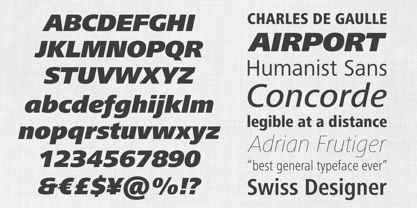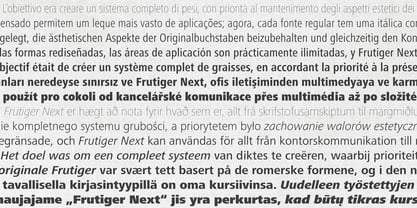
Frutiger® Next
by Linotype
The Frutiger Next Font Family was designed by Adrian Frutiger, Linotype Design Studio and published by Linotype. Frutiger Next contains 21 styles and family package options.
Frutiger Next is Adrian Frutiger’s and Linotype’s completely new interpretation of the well known typeface, Frutiger. The goal was to create a complete system of weights, and priority was placed on retaining the aesthetic aspects of the original characters while optically adjusting the contrast between weights. The italics in the original Frutiger were based very closely on the roman forms, and in the new Frutiger Next, they are re-designed to be true italics. The expansion and harmonization of the palette in regular, italic, and condensed allows a wider range of application; now each regular typeface has a companion italic. With the re-worked forms the areas of application are almost limitless, and Frutiger Next can be used for anything from office communications to multimedia to complex printed materials.
Designers: Adrian Frutiger, Linotype Design Studio
Publisher: Linotype
Foundry: Linotype